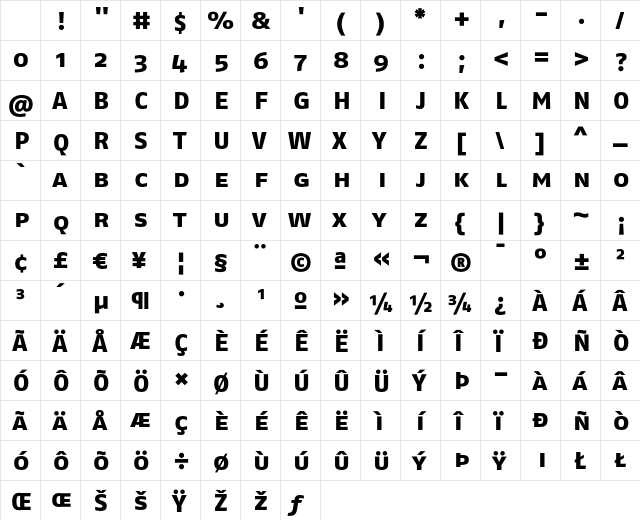
Complete FagoEx ExtraBoldCaps glyph index. Displaying only characters natively supported by FagoEx ExtraBoldCaps font.
FagoEx is a composed and adaptable typeface that performs quietly and consistently across a wide range of design contexts. Its bold stroke weight gives it real presence on the page.